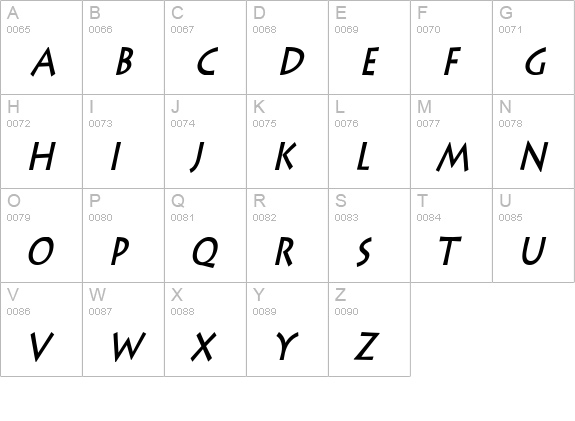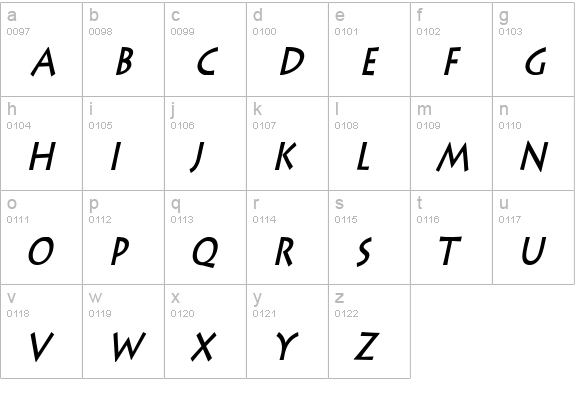
Liste Condensed Bold Italic Font Details
Liste Condensed Bold Italic is a strong, high-contrast, condensed-width, italic variant in the Liste typeface family \xE2\x80\x94 well suited to headlines, attention-grabbing titles, and strong calls-to-action.
Liste Condensed Bold Italic is a modern and sleek font that exudes sophistication and elegance. Its bold and italic styling adds a touch of drama to any design, making it perfect for headings, titles, and other prominent text elements. The condensed form of the font allows for efficient use of space while maintaining legibility. This versatile font is ideal for a wide range of design projects, from branding and advertising to editorial and web design. Its clean lines and sharp angles give it a contemporary aesthetic that is both eye-catching and professional. Best of all, Liste Condensed Bold Italic is available for free download at FontsMarket.com. Whether you're a graphic designer, a web developer, or simply a typography enthusiast, this font is a valuable addition to your collection. Download it today and add a touch of bold elegance to your projects.